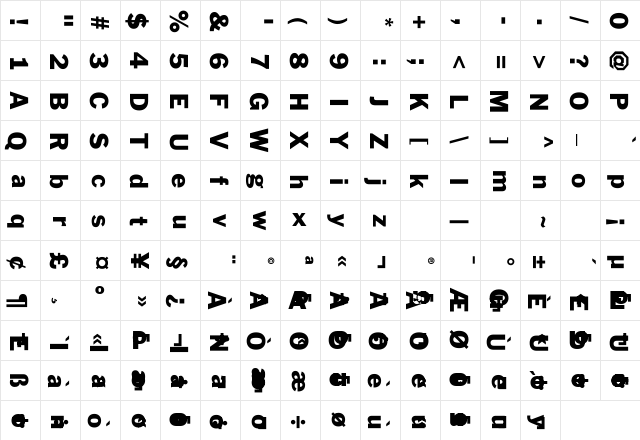
Winamp Regular
| Designer | Tom Pepper |
Design Context for Winamp Typeface
Winamp offers clean, dependable letterforms without strong stylistic allegiance, making it a practical choice for designers who need flexibility.